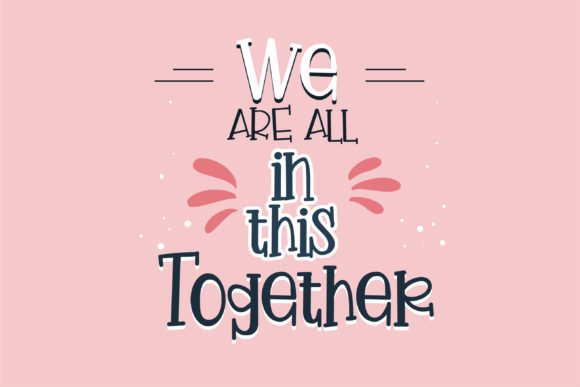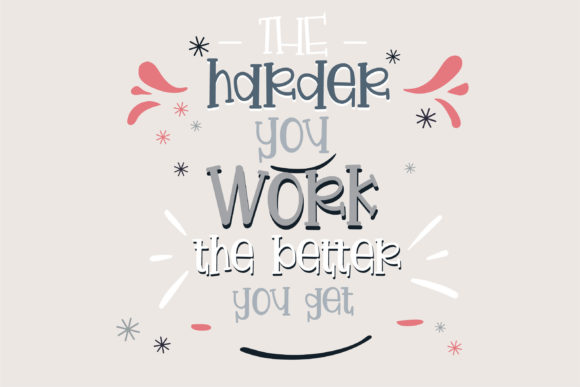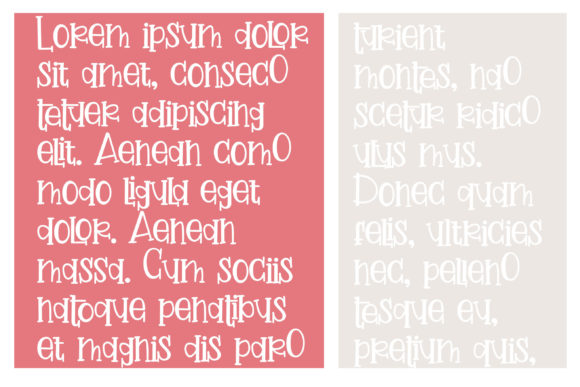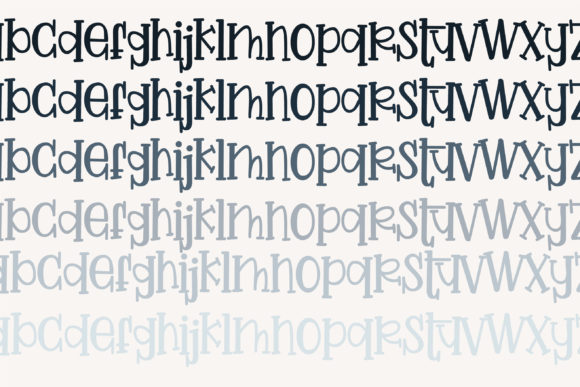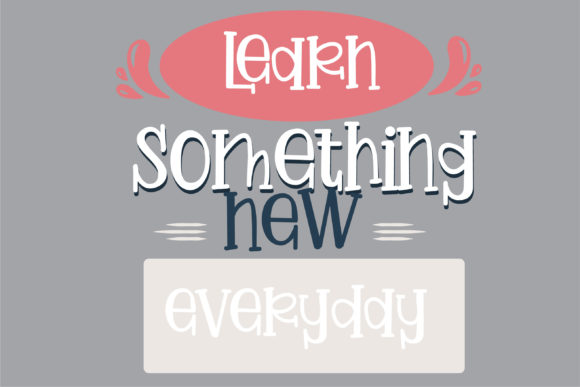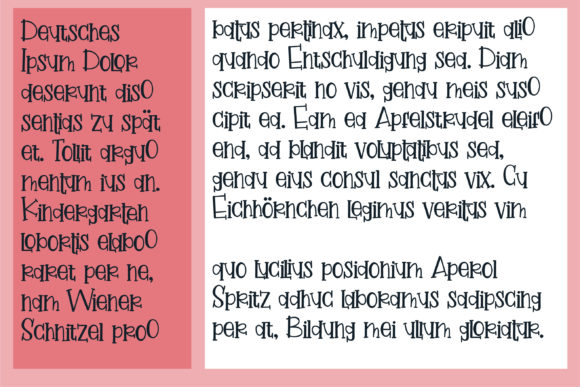
Discover the Charm of Gibraltar Font: A Whimsical Serif for Creative Minds
In the realm of typography, a good font can make all the difference in bringing a design to life. For creative professionals and crafters, finding the perfect typeface that combines aesthetics with versatility is a constant quest. This is where the Gibraltar Font comes into play, a whimsical serif font that is as charming as it is functional. In this article, we’ll dive into the unique features of the Gibraltar Font, its benefits, and why it should be a part of your design toolkit.
The Unique Appeal of Gibraltar Font
Gibraltar Font stands out with its whimsical serif design, coupled with a few ligatures that add a fresh twist to traditional serif fonts. The inclusion of ligatures not only enhances the font’s aesthetic appeal but also provides designers with more creative options. Whether you’re working on a branding project, a website design, or crafting unique digital content, Gibraltar Font offers the flexibility to match a wide pool of designs.
An example of Gibraltar Font in use, showcasing its beautiful and well-balanced characters.
Balanced Characters for Versatility
One of the key strengths of Gibraltar Font is its beautifully designed and well-balanced characters. This balance ensures that the font remains legible and visually appealing across different sizes and applications. Whether you’re designing a logo, a webpage, or a print material, the characters in Gibraltar Font will render clearly and effectively, making it a versatile choice for various design projects.
PUA Encoding for Easy Access to Glyphs and Ligatures
Gibraltar Font is PUA (Private Use Area) encoded, a feature that significantly enhances its usability. PUA encoding allows designers to access all the amazing glyphs and ligatures easily, without the need for complex software or workarounds. This means you can seamlessly integrate the font’s unique elements into your designs, giving you more creative freedom and saving you time.
Bring Your Ideas to Life with Gibraltar Font
The true test of a font lies in its ability to elevate a design. With Gibraltar Font, you’ll find that it breathes new life into your creative ideas. Its whimsical nature adds a touch of personality to any project, making it stand out in a crowded digital landscape. Whether you’re a professional designer or a crafter working on personal projects, Gibraltar Font is a valuable asset that can help you achieve your design goals.
Why Designers and Crafters Love Gibraltar Font
- Versatility: Gibraltar Font’s design makes it suitable for a wide range of projects, from digital content to print materials.
- Aesthetic Appeal: Its whimsical serif design and ligatures add a unique charm to any design.
- Easy to Use: PUA encoding ensures easy access to all glyphs and ligatures.
- Legibility: The font’s well-balanced characters ensure clarity across different sizes and applications.
Gibraltar Font is more than just a typeface; it’s a tool that can transform your designs. Its whimsical serif design, combined with practical features like PUA encoding, makes it an excellent choice for designers and crafters looking to add a touch of whimsy to their work. With Gibraltar Font, you can bring your creative ideas to life in a way that’s both fresh and engaging. Whether you’re working on a new project or looking to refresh your design toolkit, Gibraltar Font is definitely worth considering.
Incorporate Gibraltar Font into your design workflow and experience the difference it can make. Its unique blend of aesthetics and functionality ensures that your designs will stand out, capturing the attention of your audience and leaving a lasting impression.